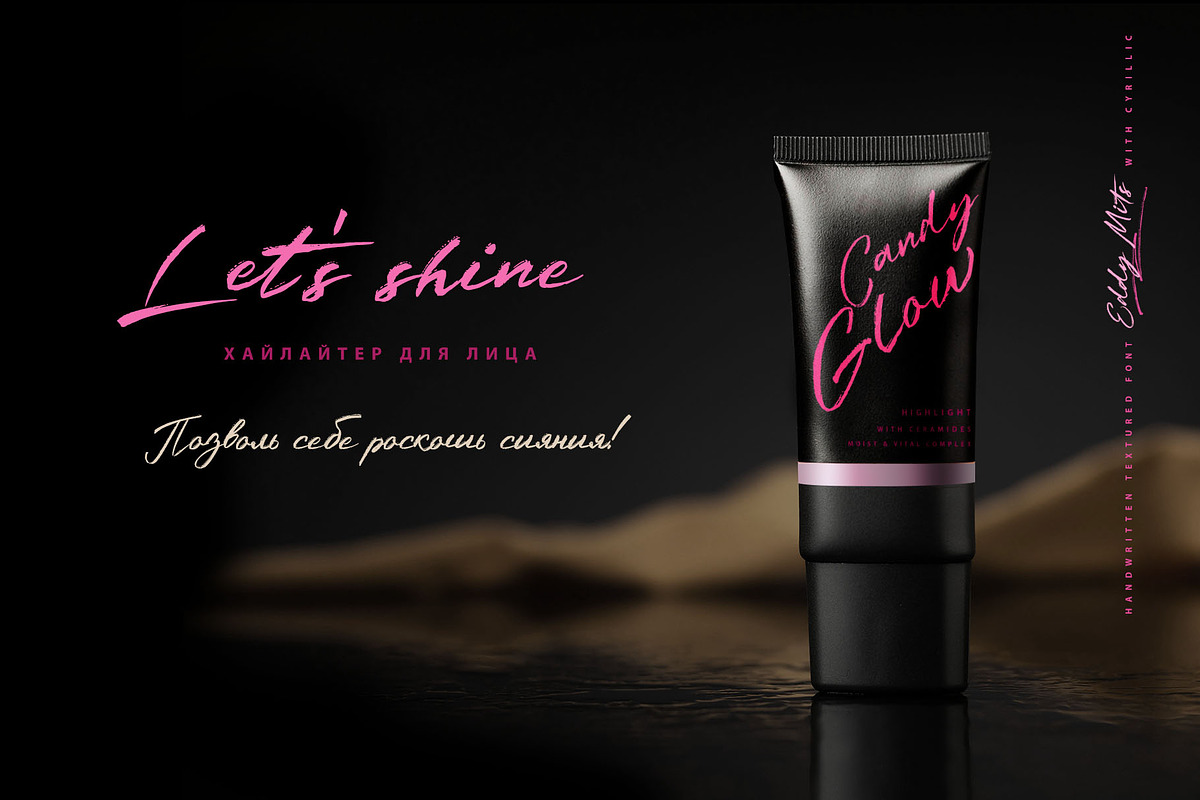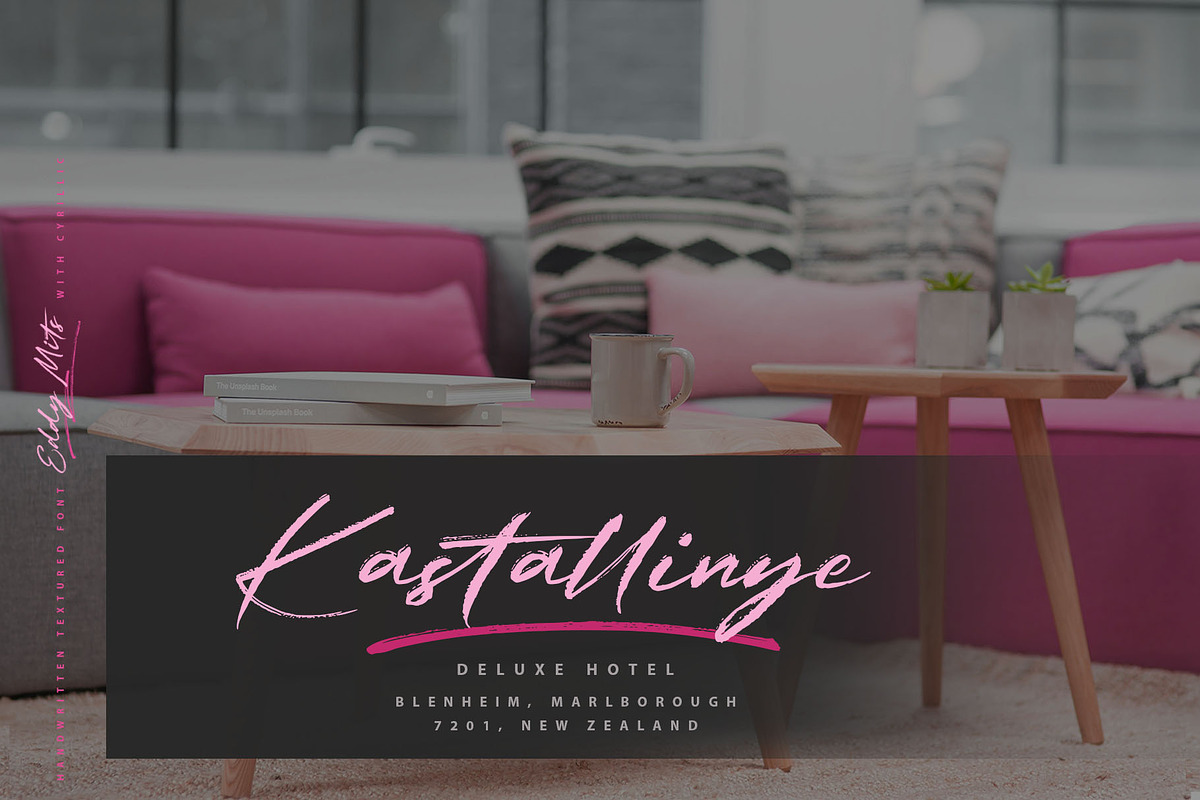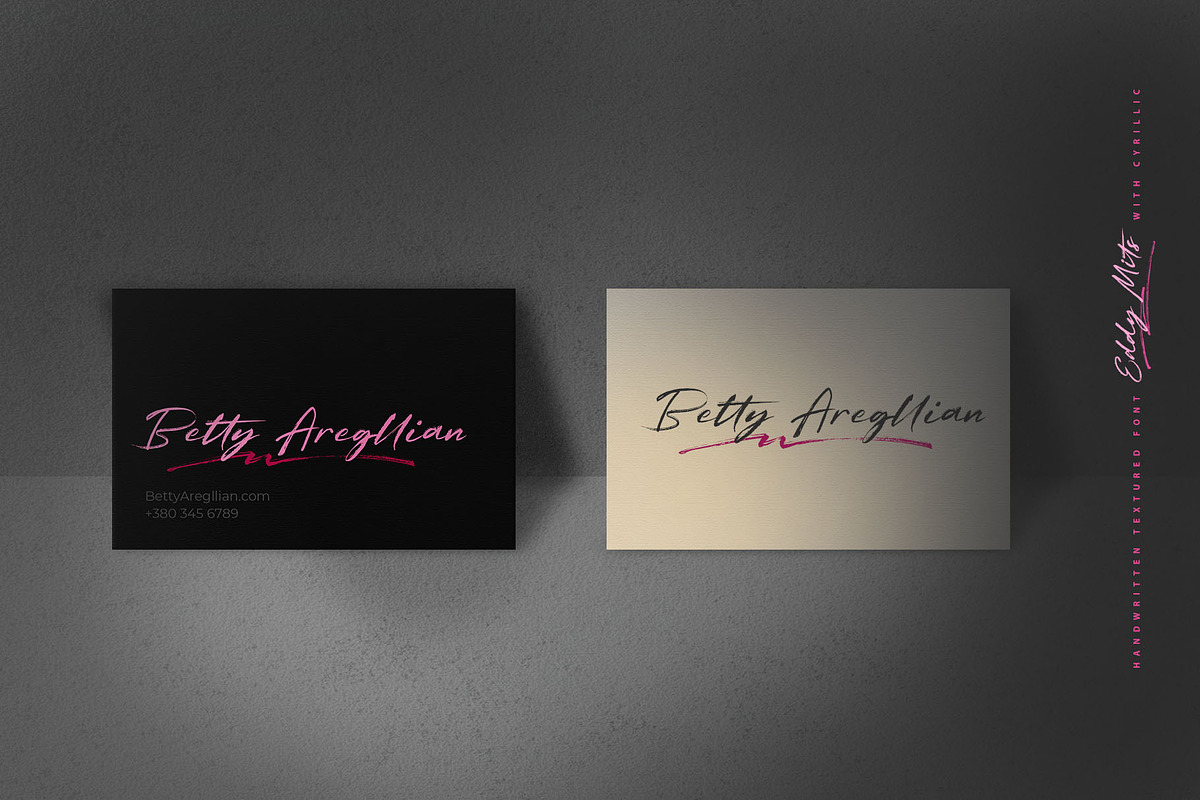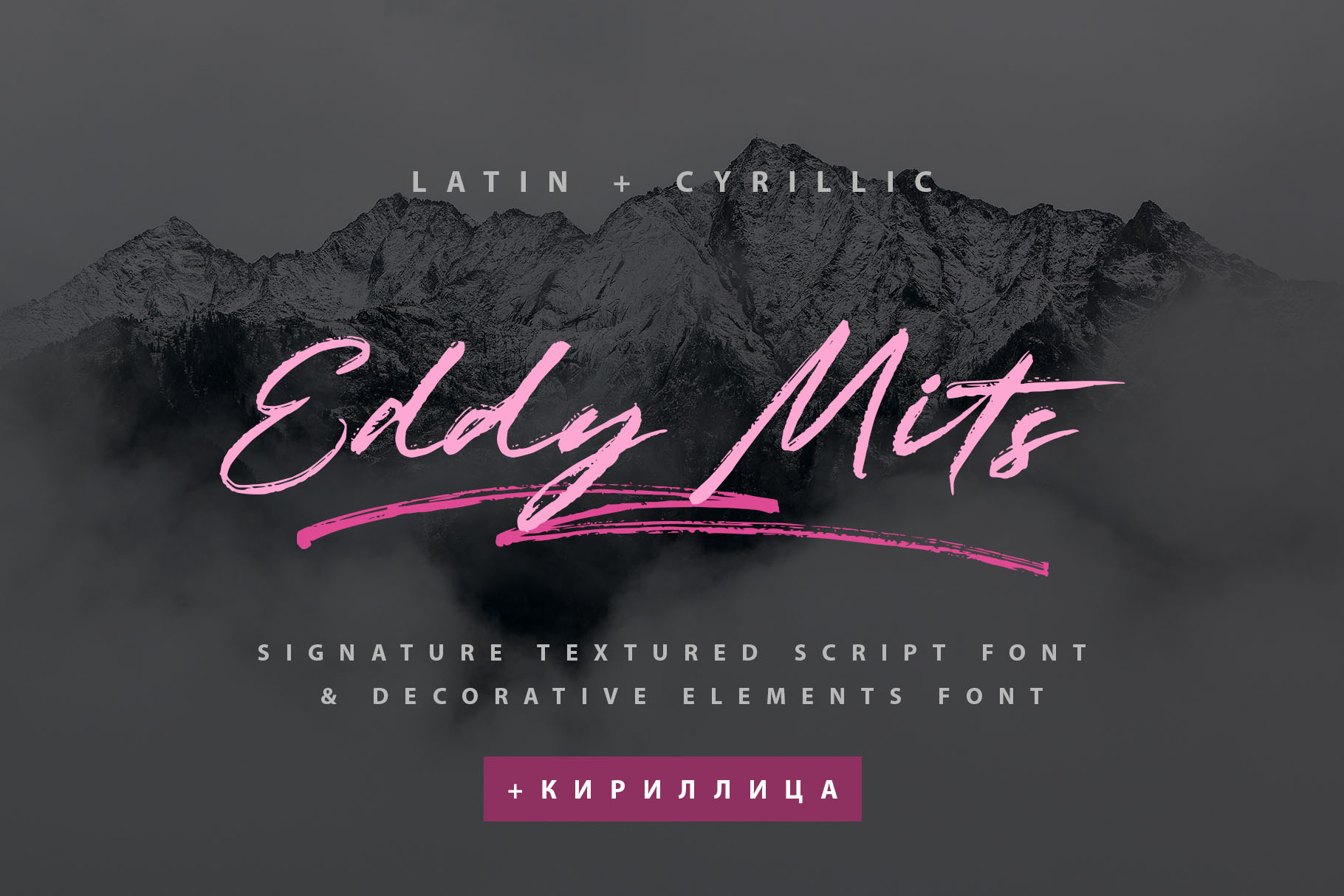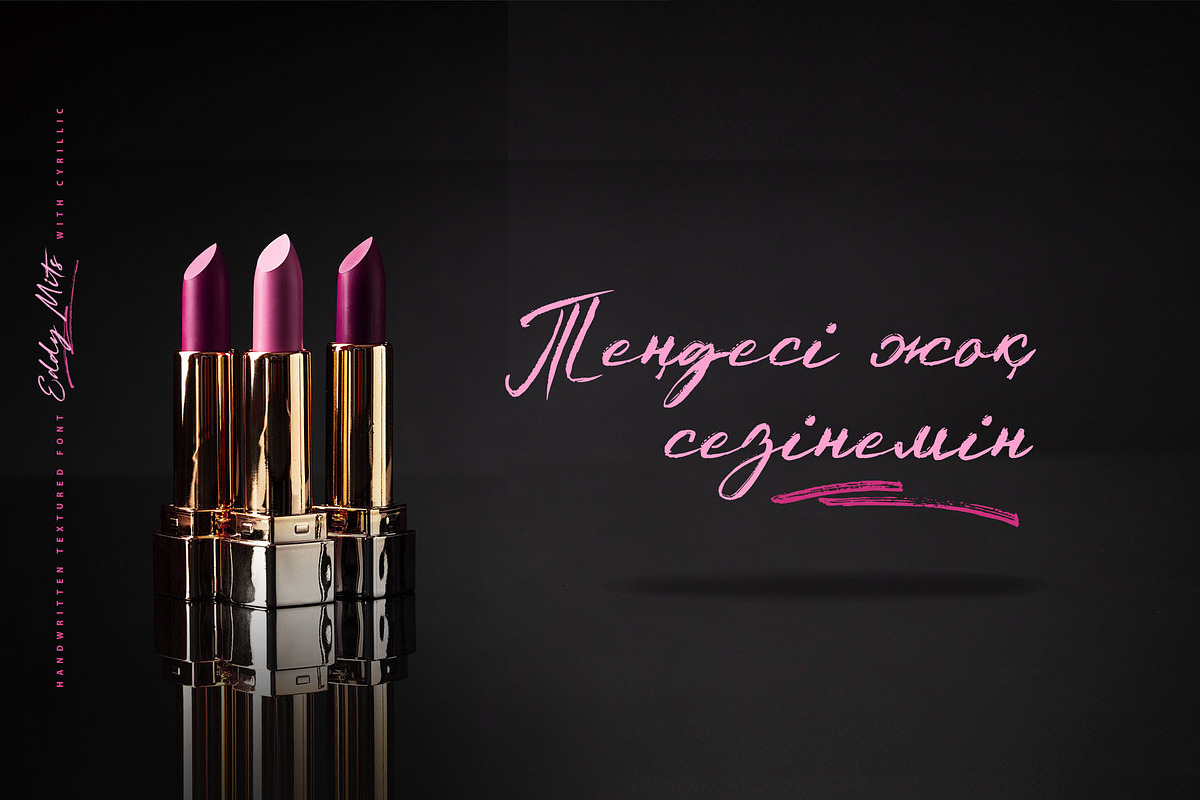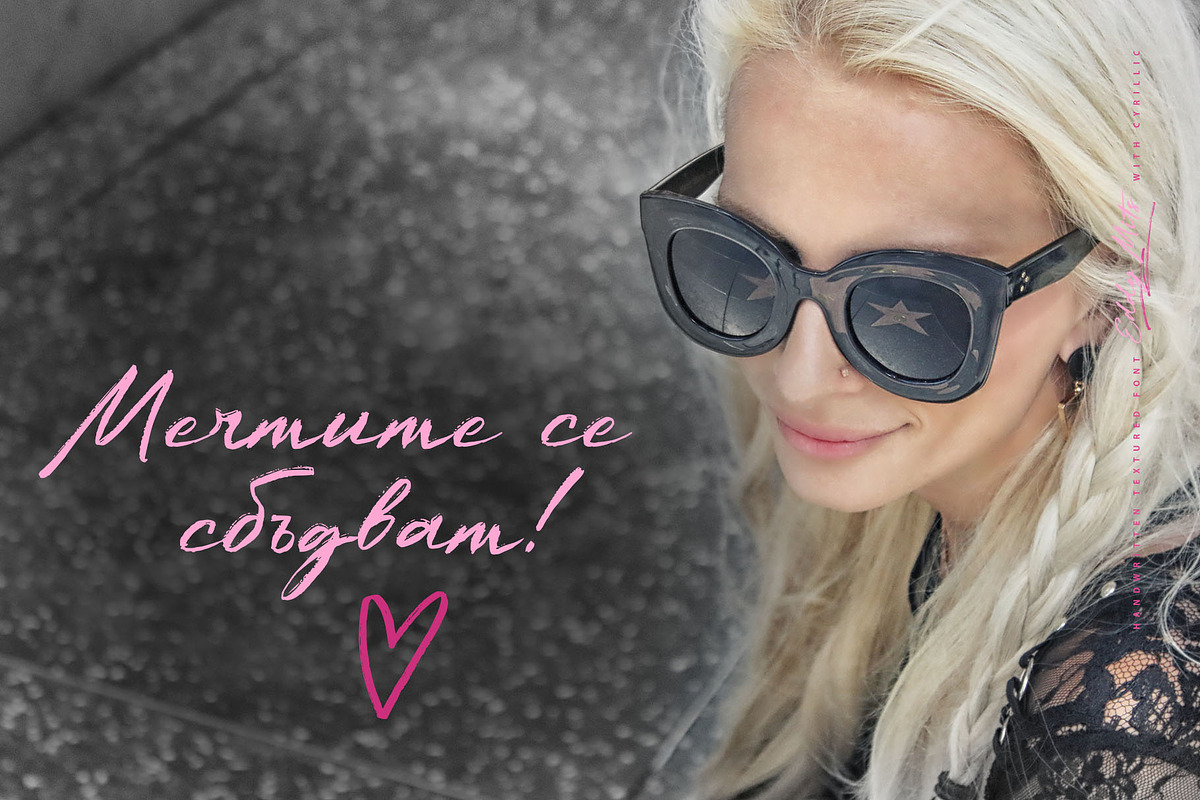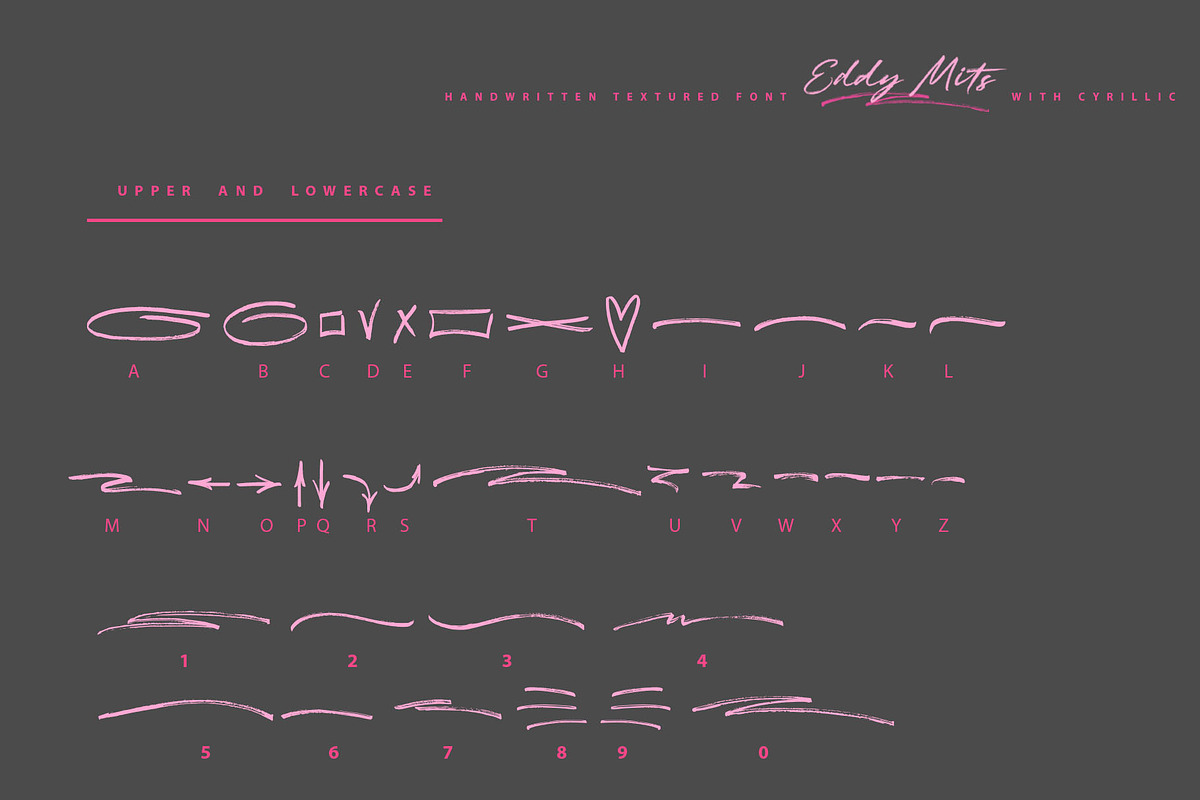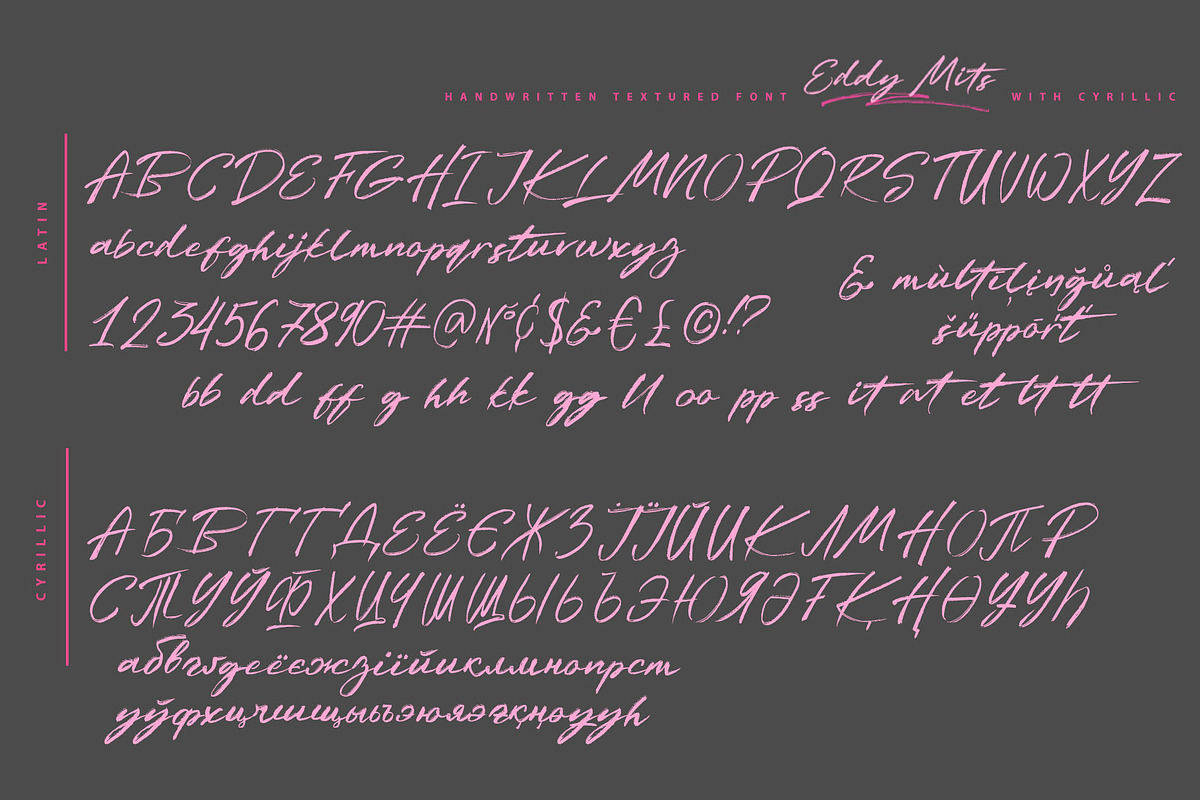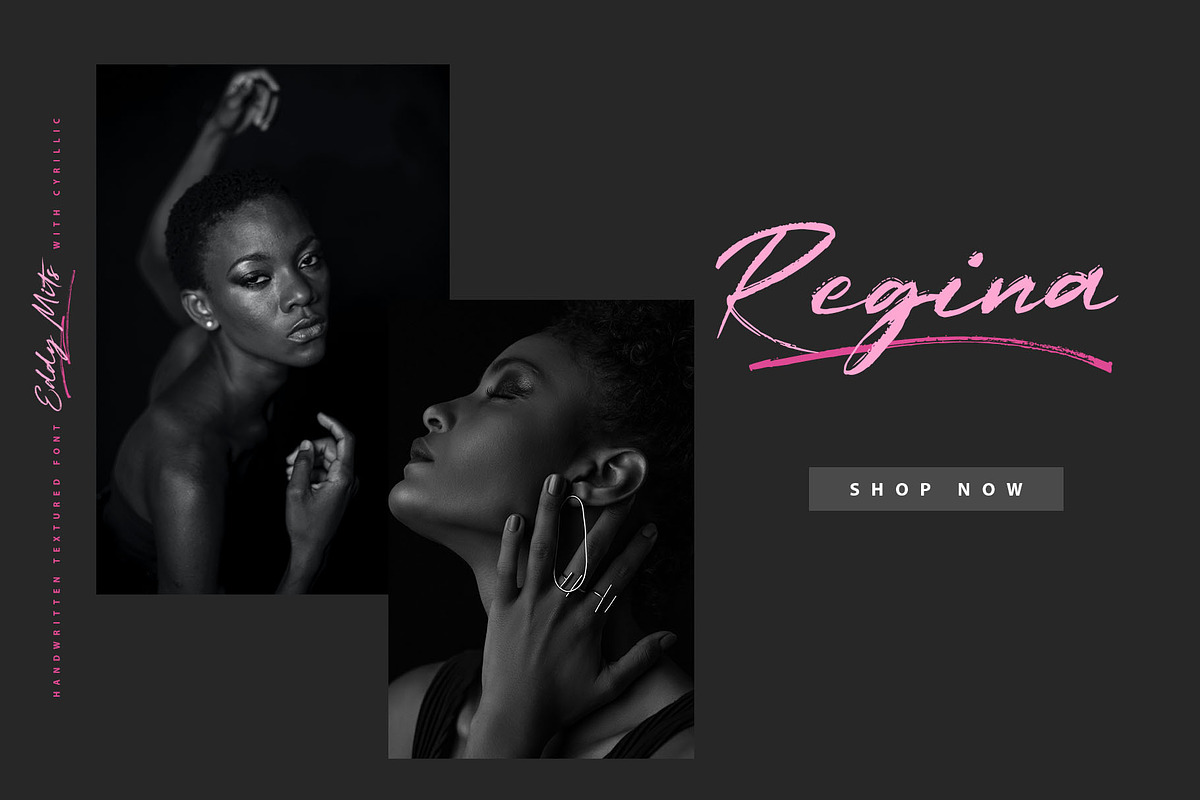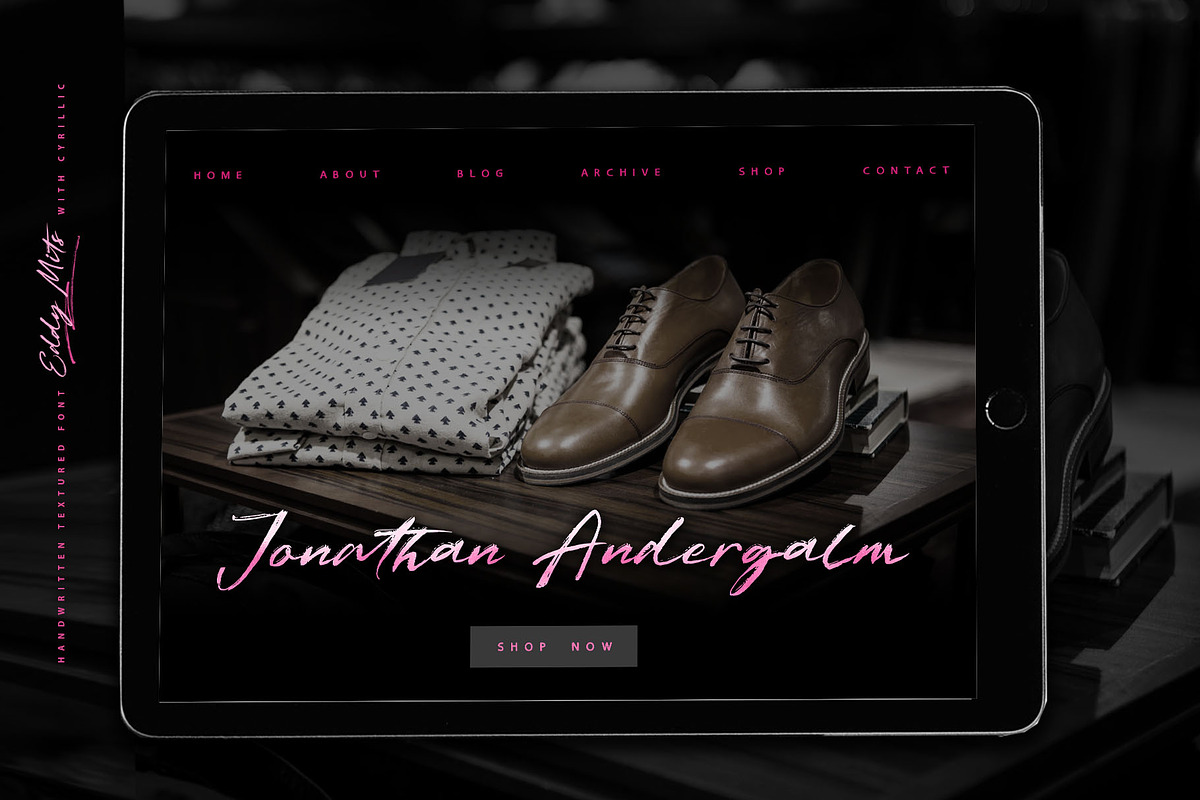
Eddy Mits Cyrillic Textured Font
Eddy Mits Cyrillic Textured Script font was handwritten with a dry brush and will look great on branding design, posters, apparel, logotype, website header, fashion design, wedding card design, and more.
Eddy Mits textured script font contains a full set of uppercase and lowercase letters and 23 ligatures - which can be used to create a handwritten calligraphy look.
The Cyrillic part of the font contains the uppercase letters lowercase letters and 18 ligatures, giving a realistic hand-lettered style.
Eddy Mits Symbols is a font with over 36 unique, hand-drawn elements and swashes that can help to make your design more original. A different symbol is assigned to every uppercase or lowercase standard character plus numbers 0-9 so you do not need graphics software just simply type the letter you need.
Multilingual Support for 32 languages: Latin glyphs for Afrikaans, Albanian, Basque, Bosnian, Catalan, Danish, Dutch, English, Estonian, Faroese, Filipino, Finnish, French, Galician, Indonesian, Irish, Italian, Malay, Norwegian Bokmål, Portuguese, Slovenian, Spanish, Swahili, Swedish, Turkish, Welsh, Zulu. And Cyrillic glyphs support Russian, Belorussian, Bulgarian, Ukrainian, and Kazakh languages.